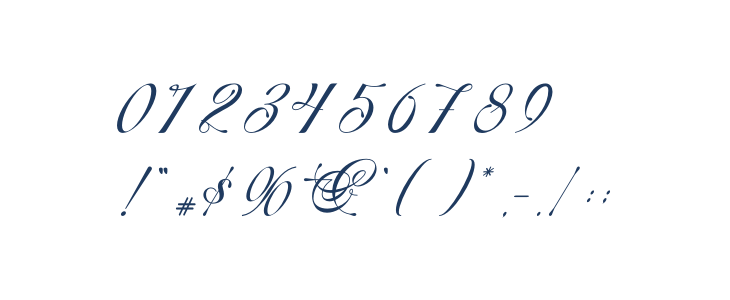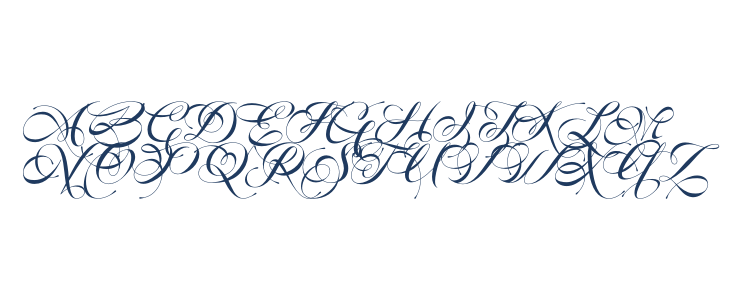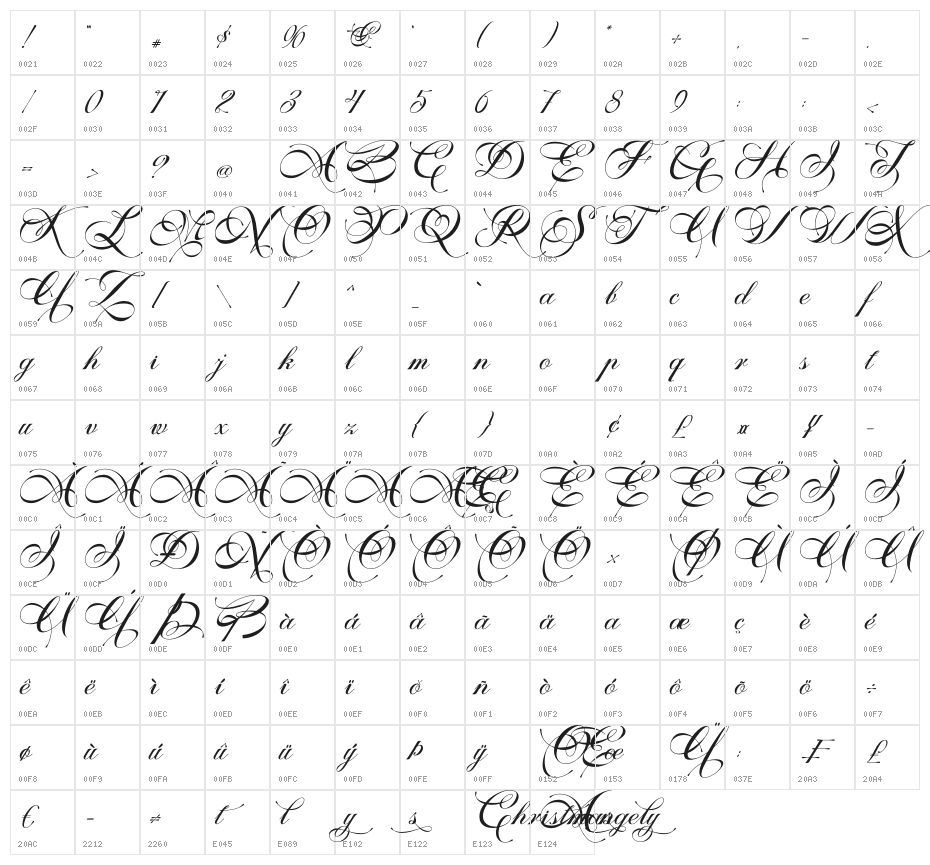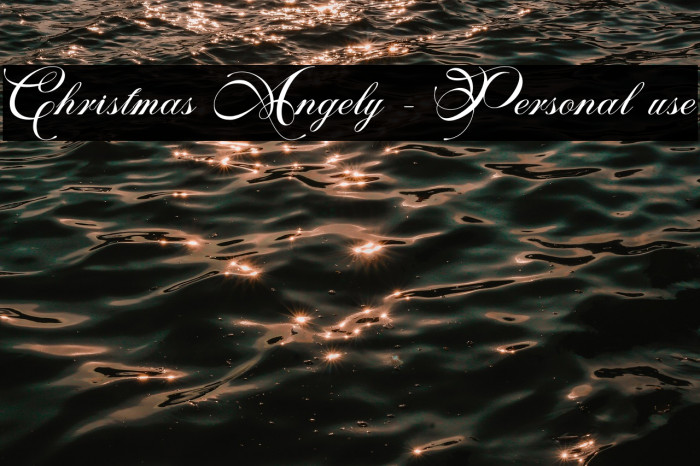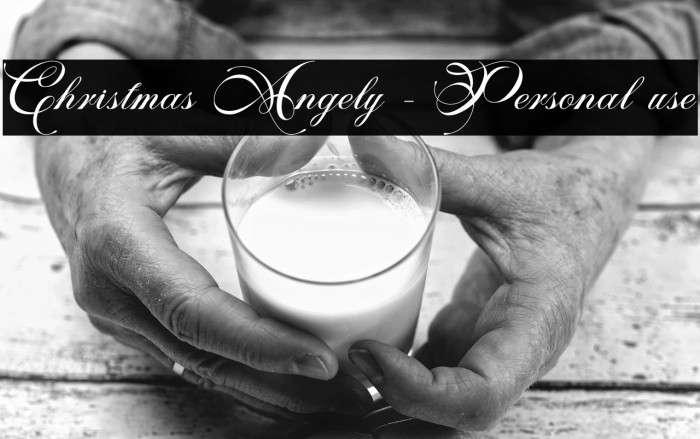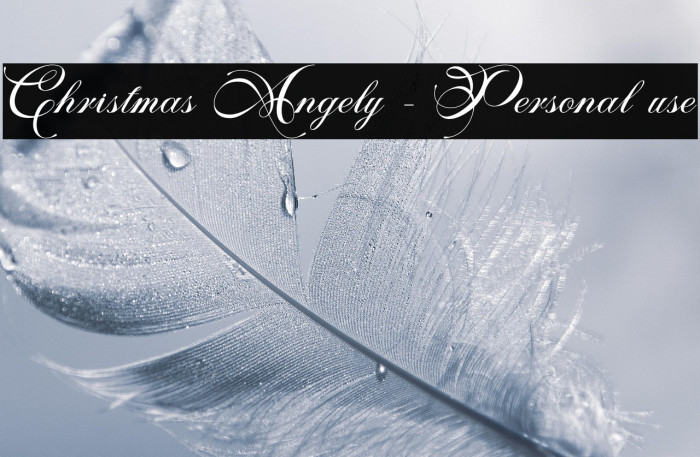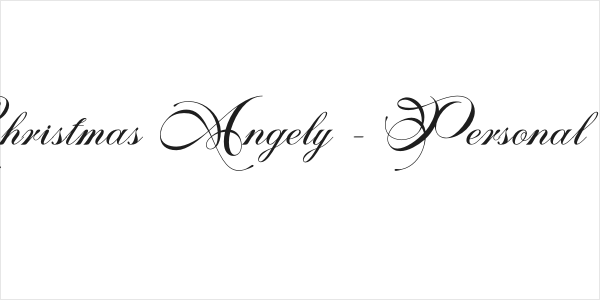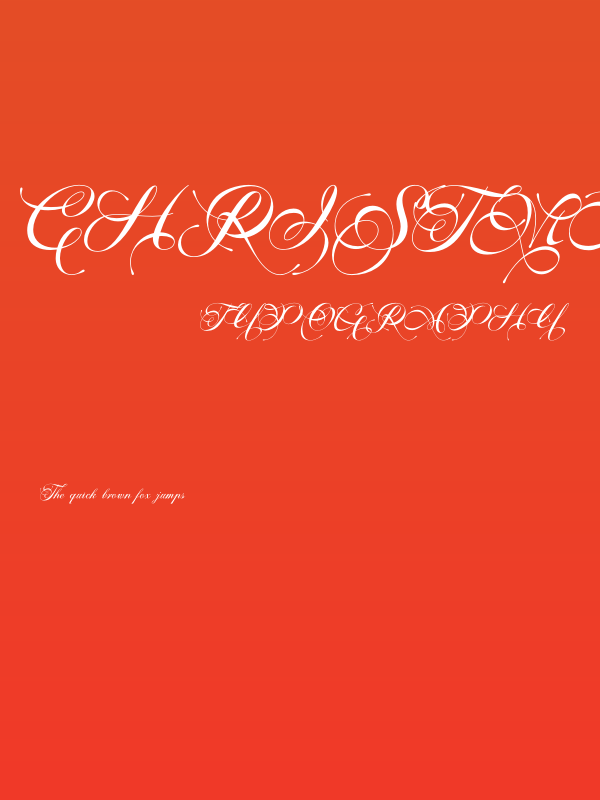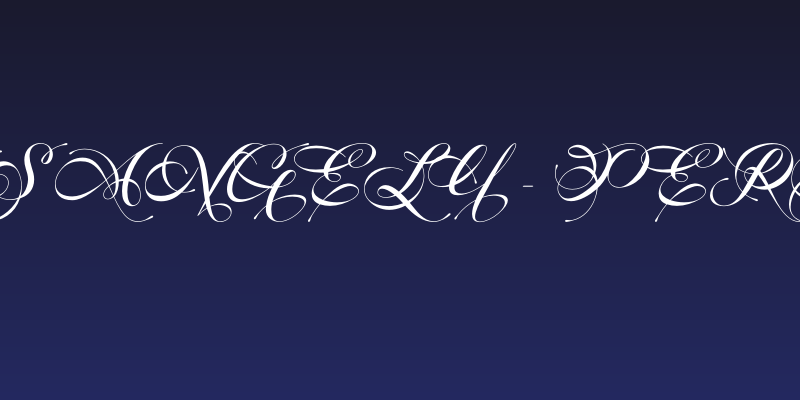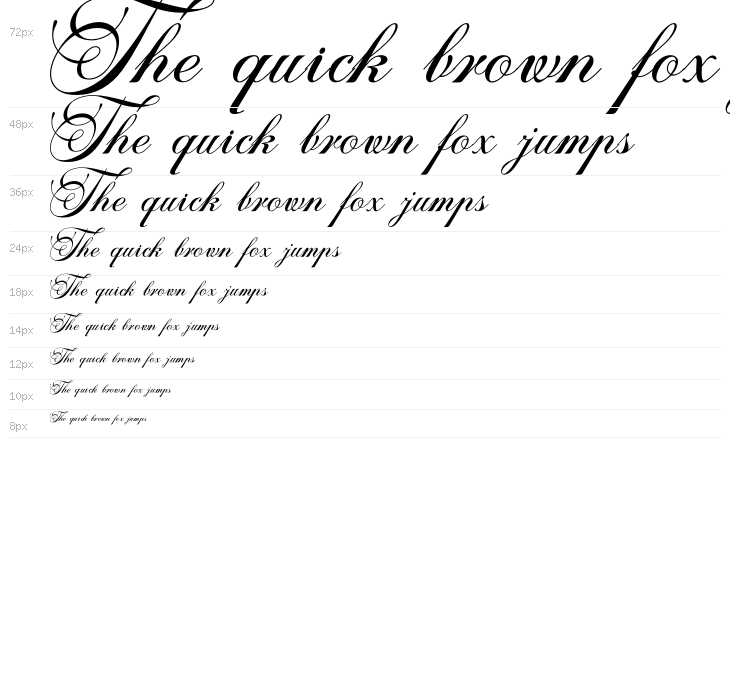
Christmas Angely - Personal use Font
Christmas Angely - Personal use Description
Elegant script typeface with highly decorative uppercase letters featuring elaborate swashes and flourishes, paired with more restrained, slanted lowercase characters. The numerals and punctuation maintain the flowing, calligraphic style, contributing to a sophisticated and festive appearance.
| Overall Style | Decorative, Elegant, Festive |
| Use Case | Logos, Invitations, Headlines, Greeting cards |
| Proposed Projects | Wedding invitations, holiday cards, event branding, luxury packaging, decorative headlines. |